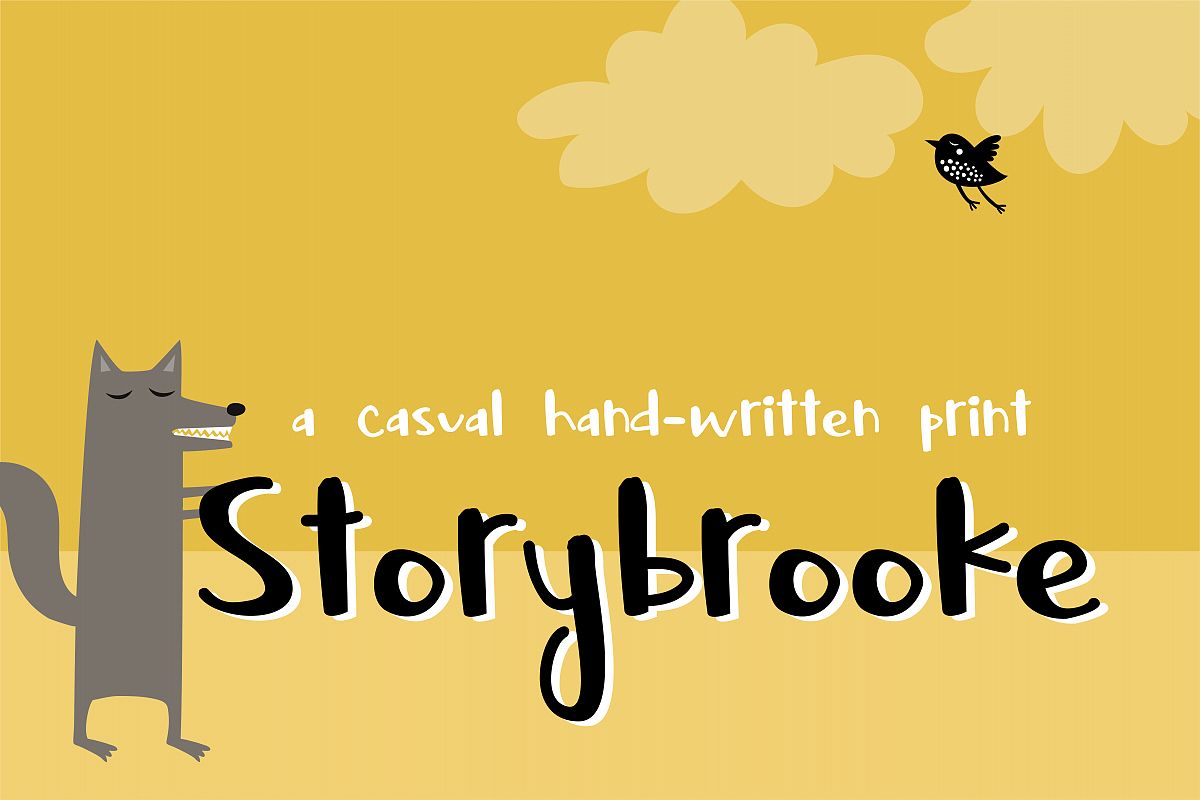
ZP Storybrooke
This casual hand-written print has a youthful appeal to it. With it's variations of thick and thin lines it keeps your project interesting.